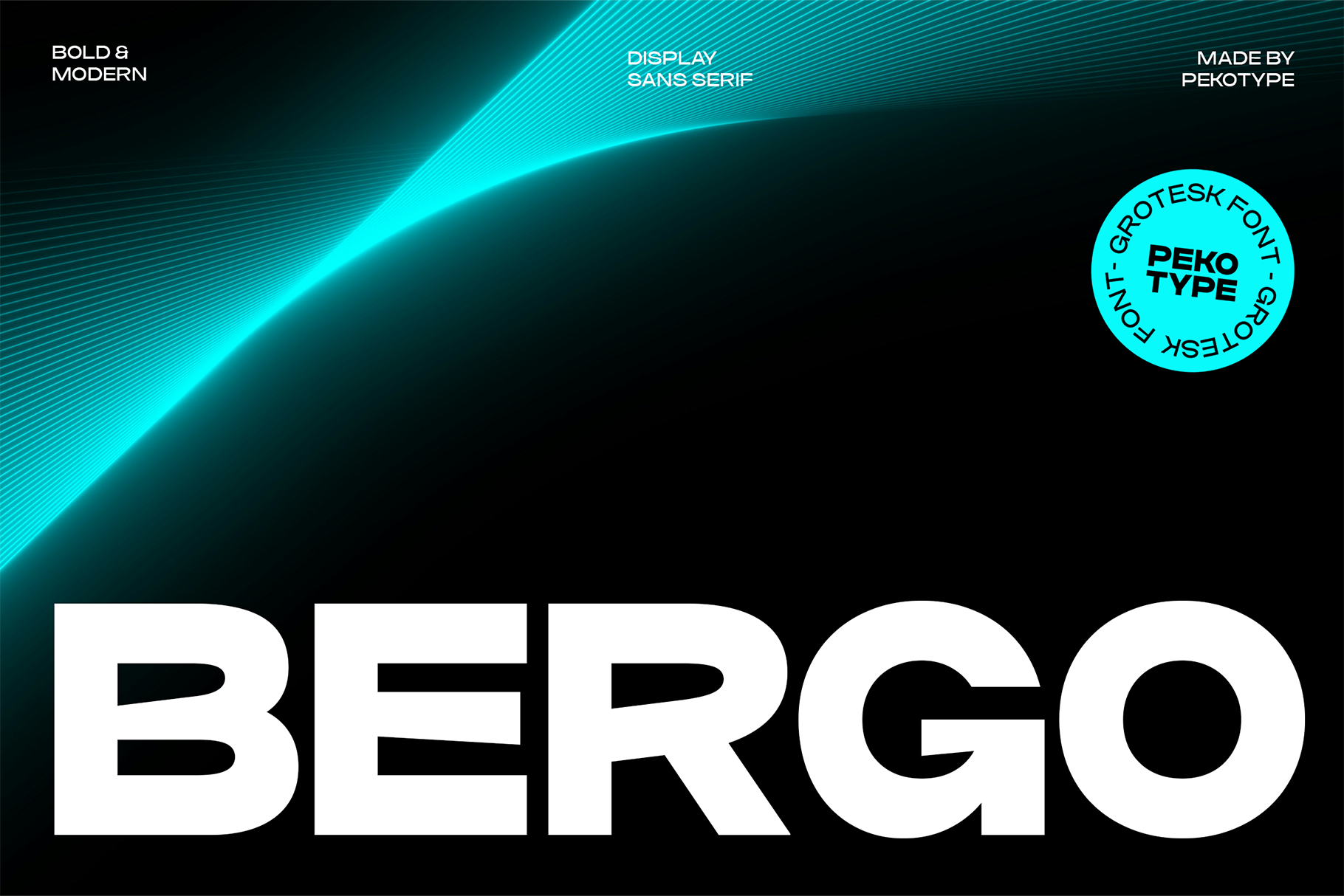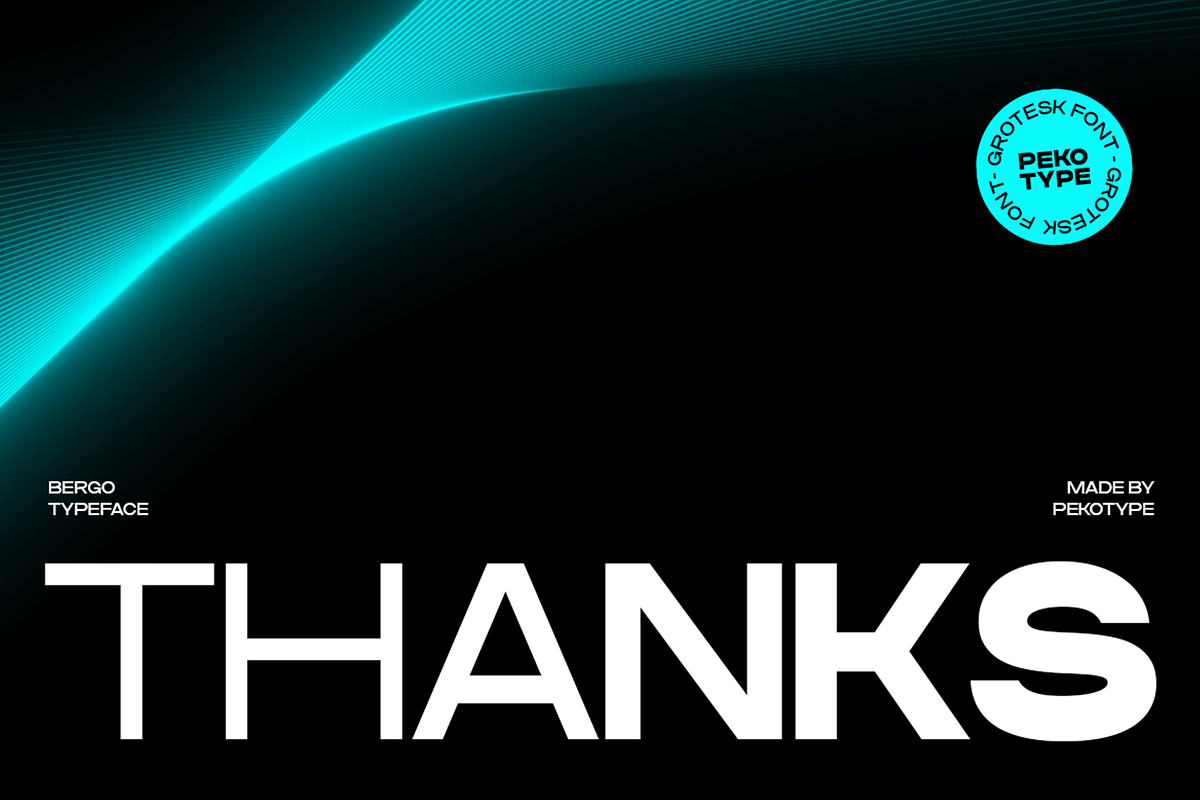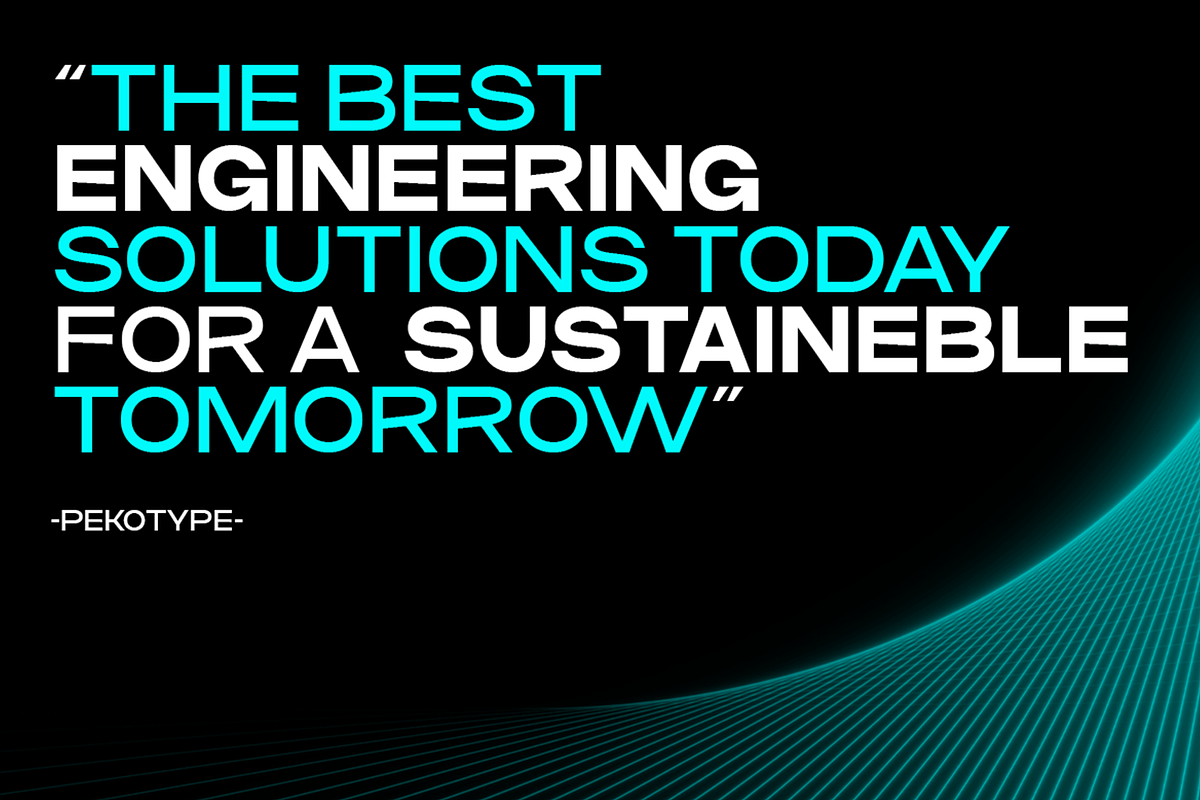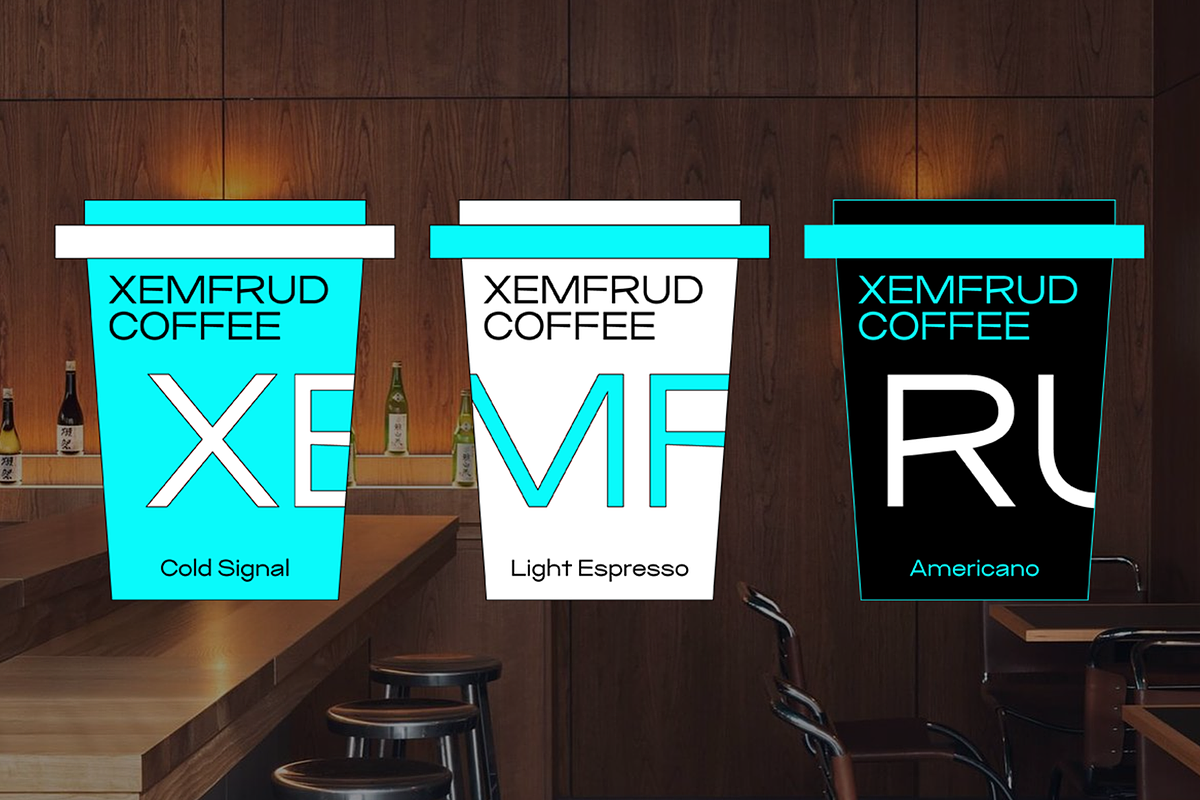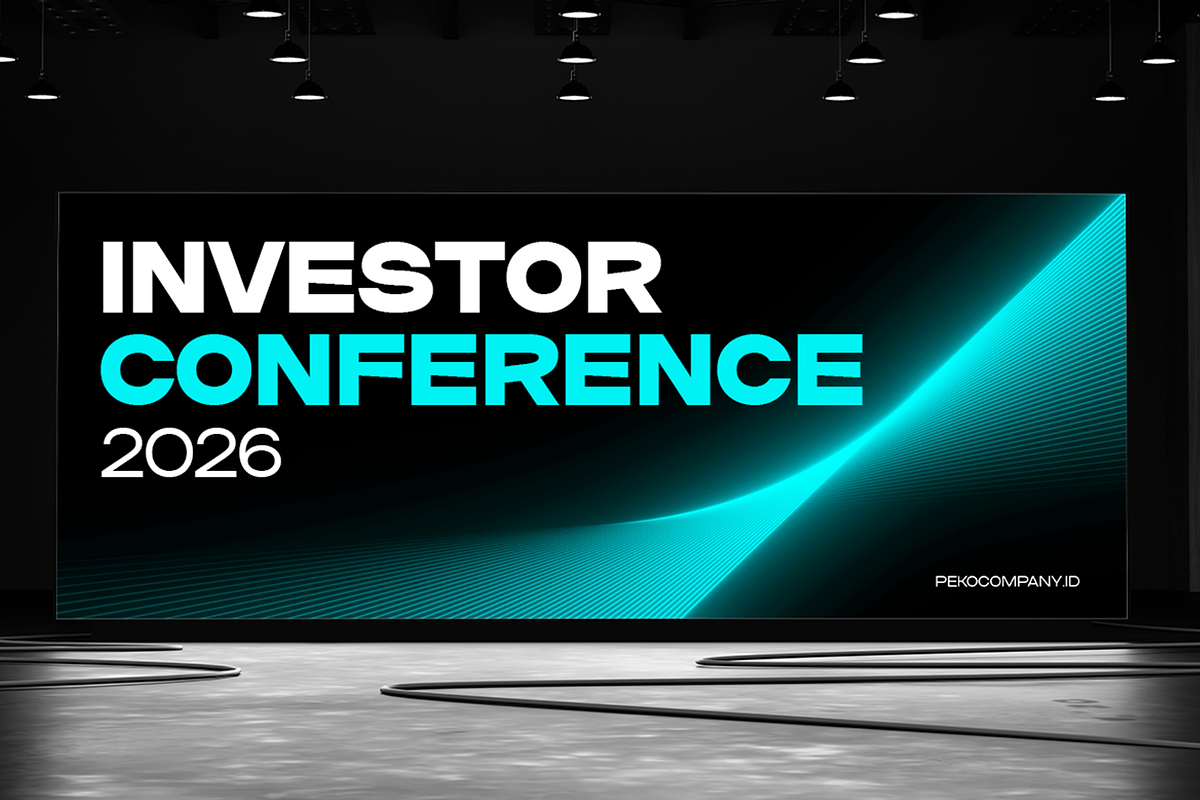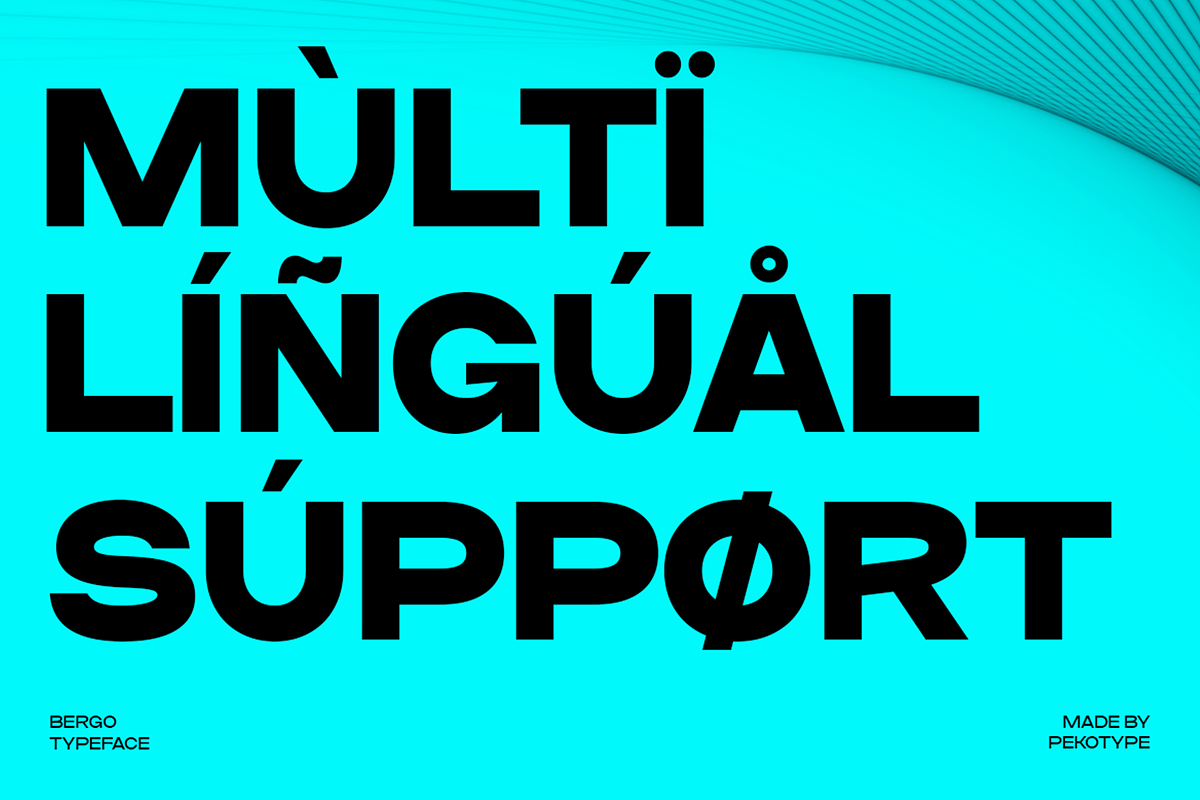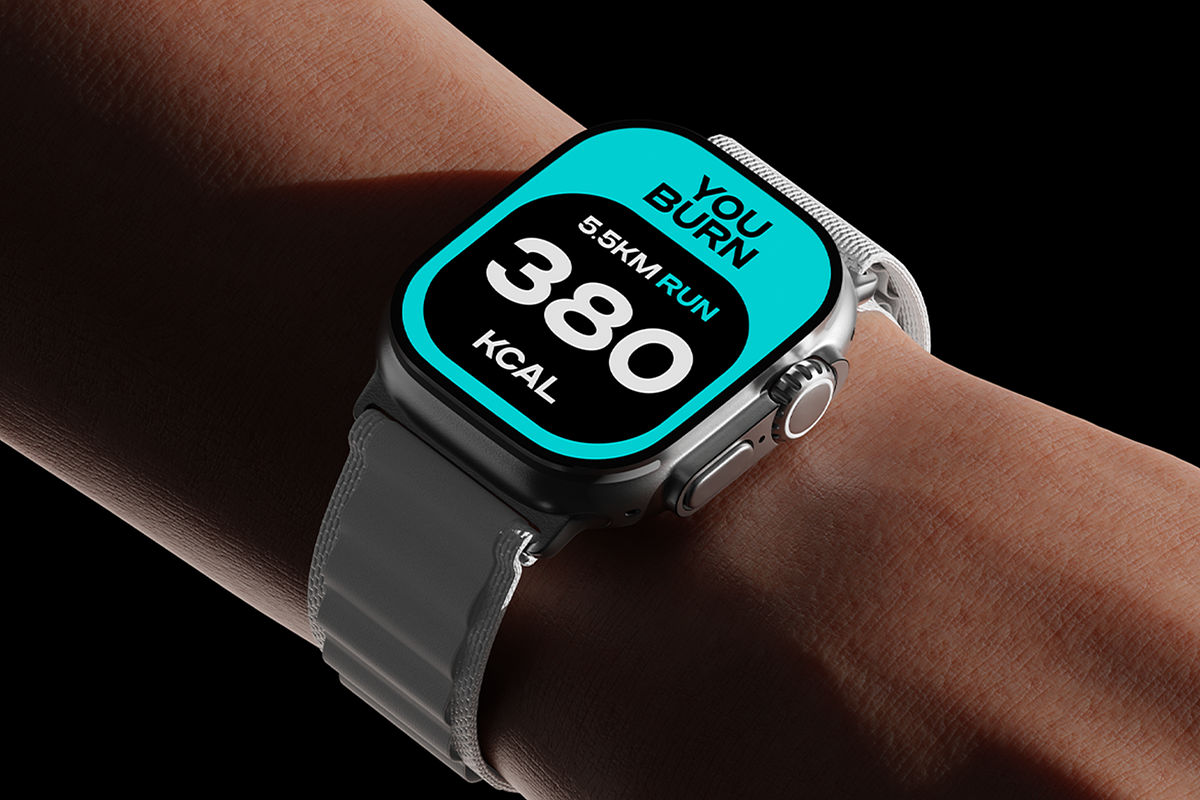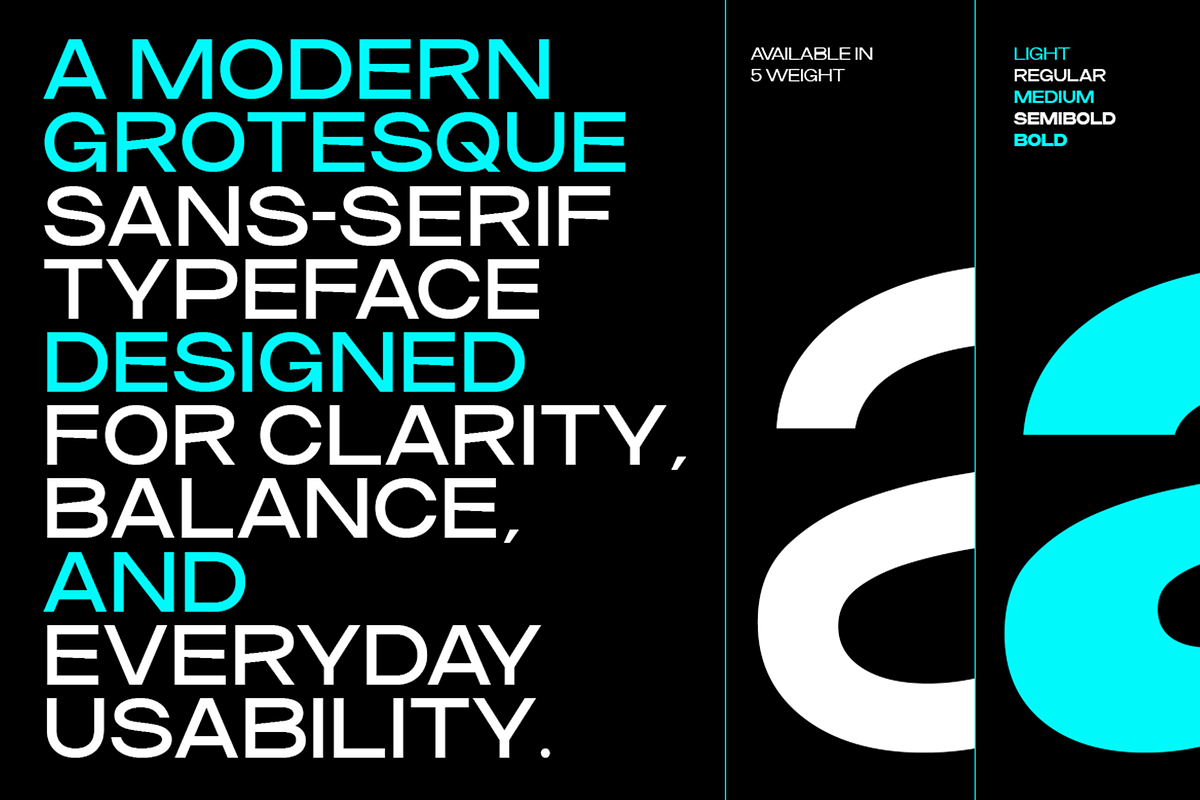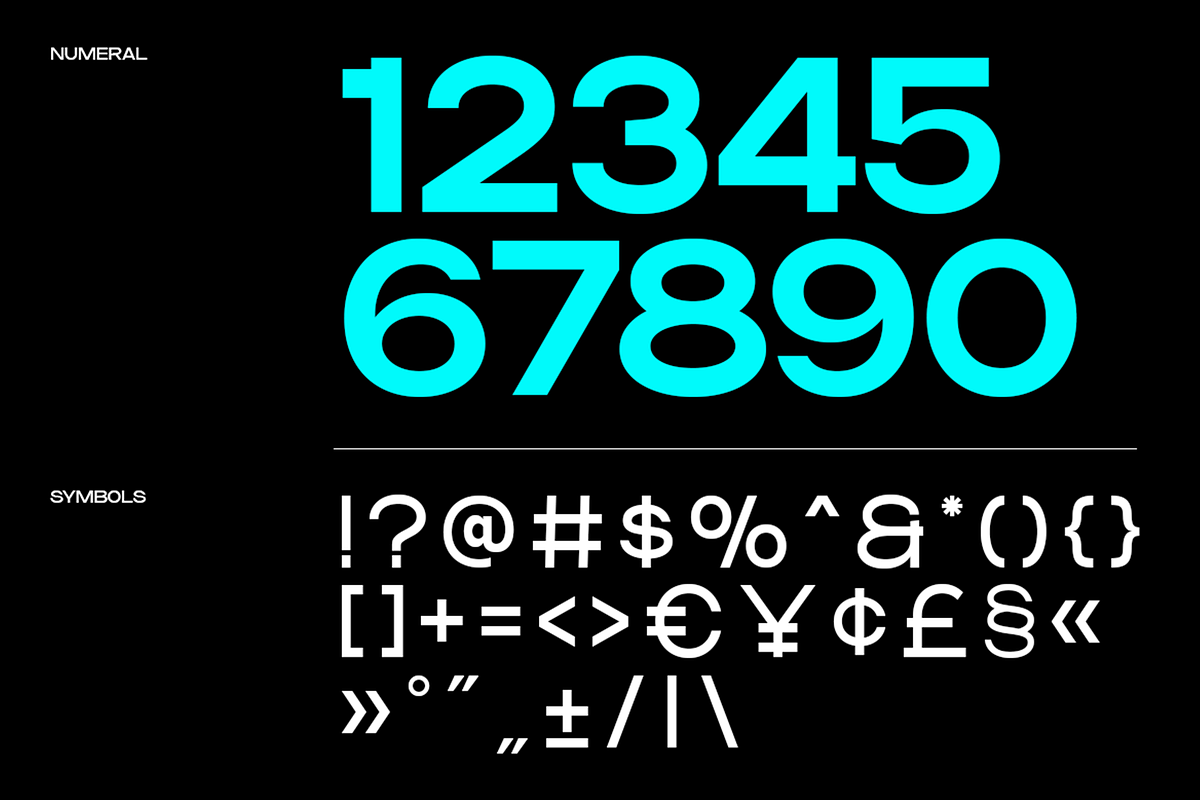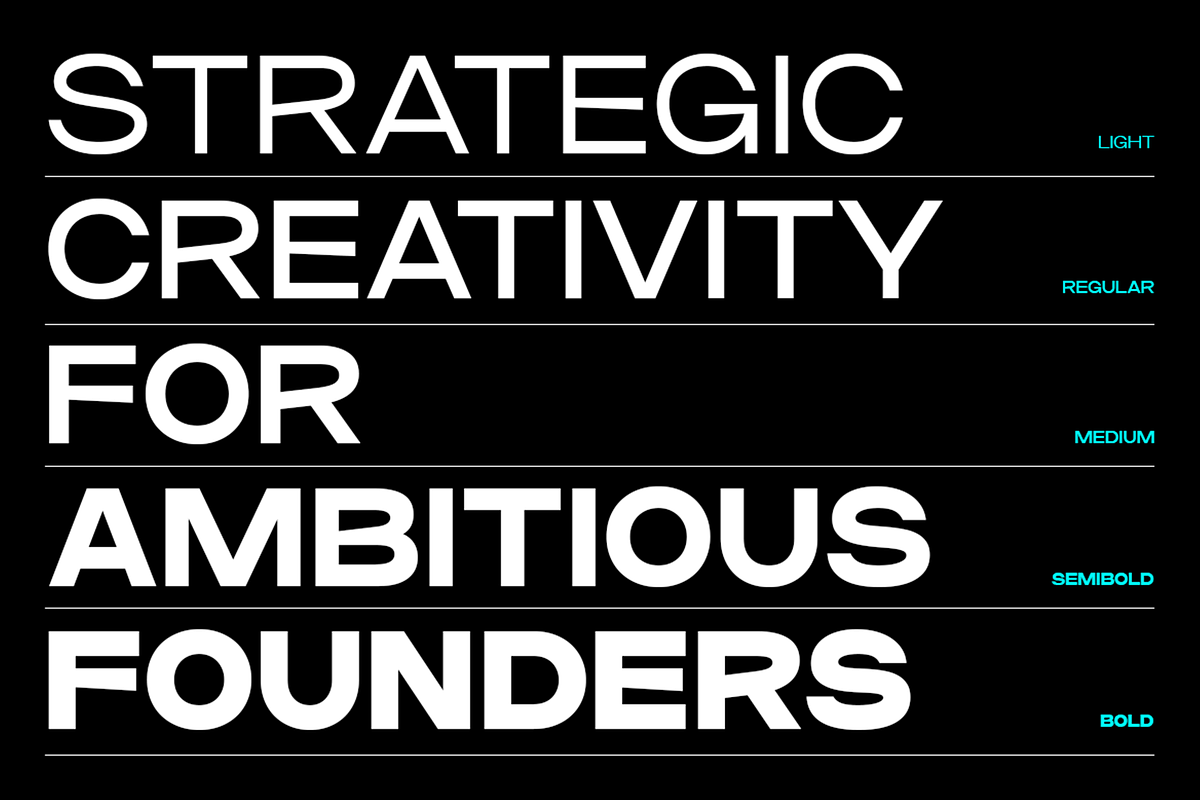
Bergo - Modern Expanded Display Font
BERGO is a modern grotesque sans-serif typeface made for clean, bold, and versatile design. With balanced proportions and clear letterforms, it gives your work a sharp, professional look that stays easy to read across both digital and print projects.
Perfect for branding, logos, presentations, websites, UI design, technology companies, corporate identity, posters, packaging, social media, and editorial layouts. BERGO is a reliable choice when you need a modern typeface that looks clean, confident, and timeless.
Numbers, Symbols, & Punctuation